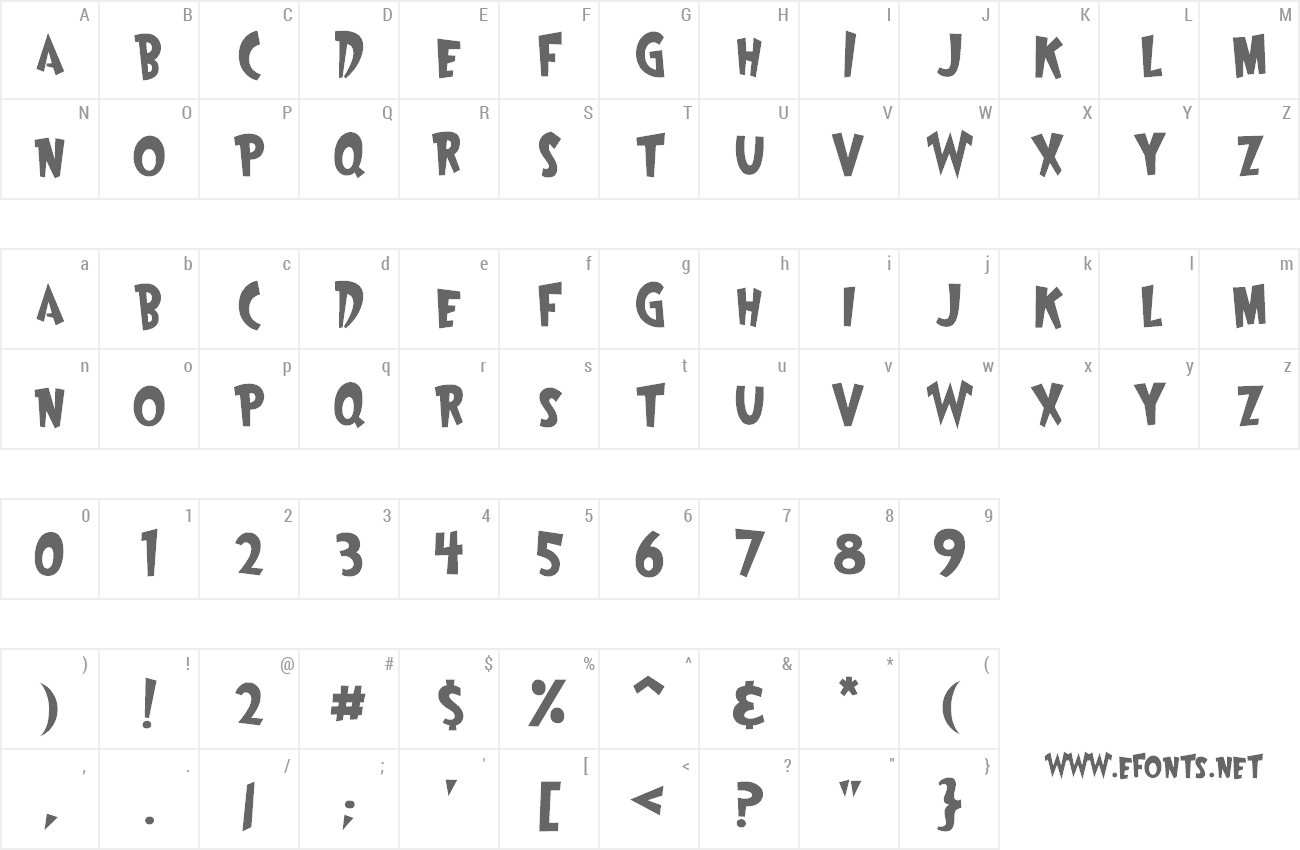
| Font name: | Wayoshi |
| Author: | tymime |
Inspired by the logos of the Wario Land and Yoshi series. If you'd like to use this font for commercial purposes, consider using the improved version for sale here: http://www.myfonts.com/fonts/tymime-fonts/boshi/ If you insist on using the free version (I wouldn't recommend it), I still require a donation (any amount). |